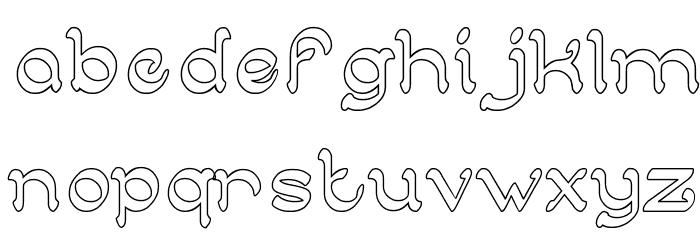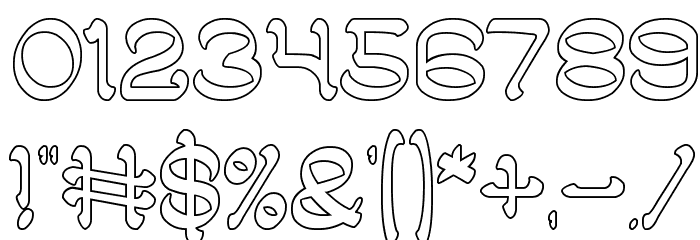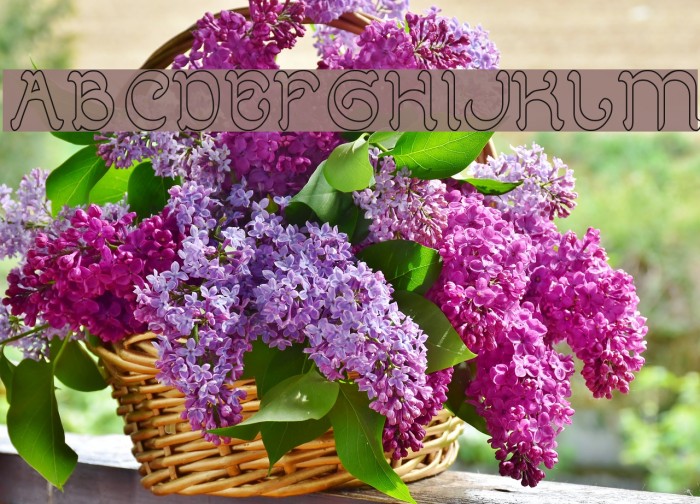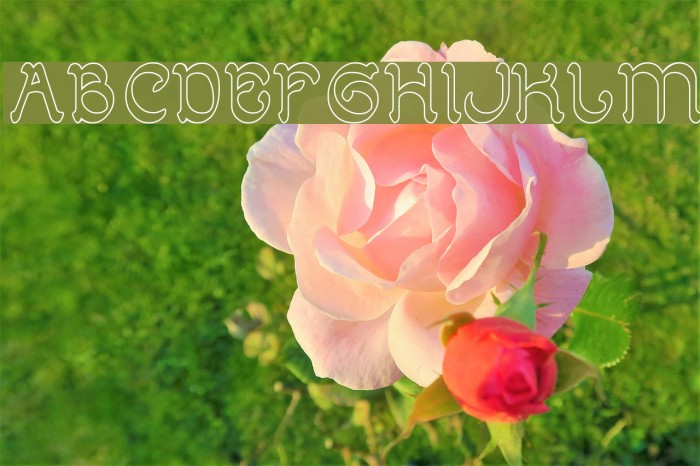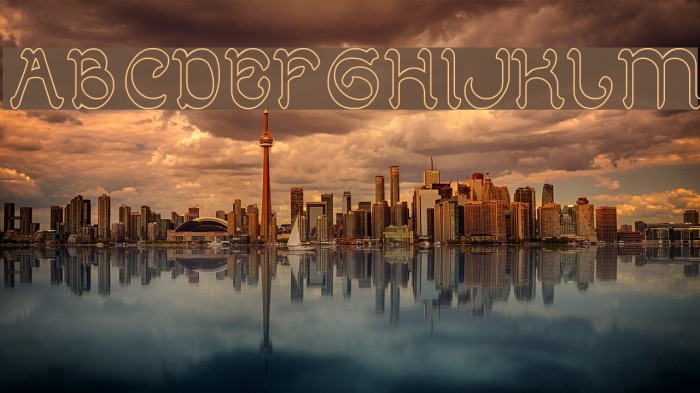
ARABIAN KNIGHT-Hollow Font
This font features a unique hollow design with a decorative and playful style. Each character is outlined, giving it a three-dimensional appearance. The uppercase and lowercase letters maintain a consistent style, with rounded edges and smooth curves that create a cohesive look. The numerals and special characters follow the same design principles, ensuring uniformity across all glyphs. This font's hollow nature makes it stand out, offering a distinctive aesthetic that can be both modern and whimsical. The spacing between characters is balanced, allowing for readability while maintaining its artistic flair.
A decorative hollow font with smooth curves and a playful style.
- Proposed Projects: Ideal for creative projects such as posters, invitations, and branding materials where a unique and eye-catching font is desired.